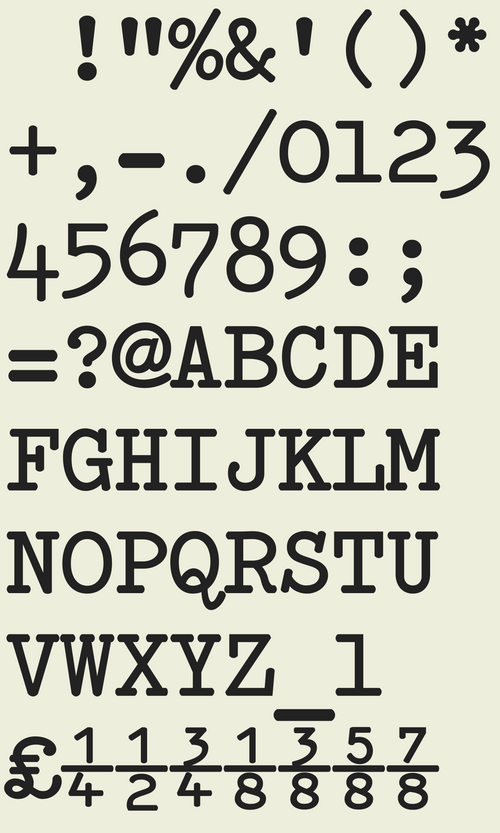
Fractions and symbols
Added the remaining fractions, symbols, and punctuations. The font now has everything that the typewriter has, apart from little letters (25 to go!).
Typewriter B Font
A typewriter font